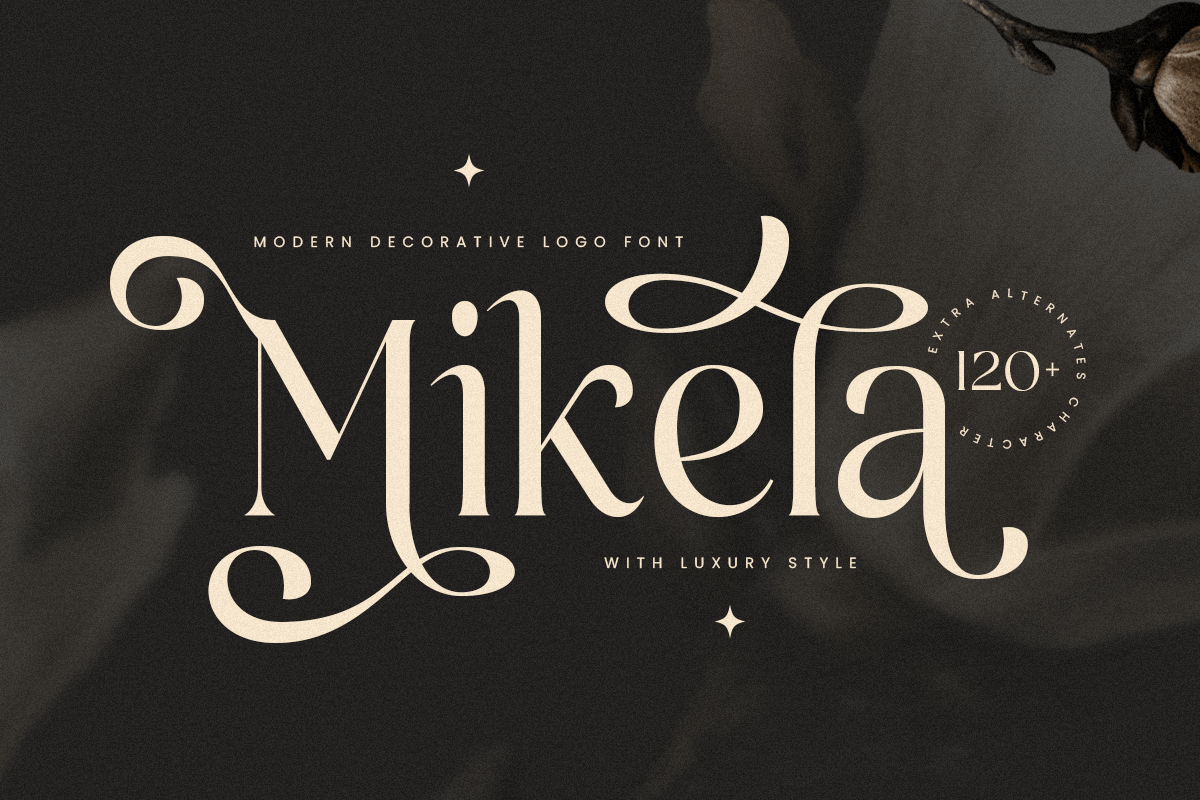
mikela
Mikela
Mikela-Modern Decorative Logo Font
Introducing Mikela, the epitome of luxury and cinematic elegance in a serif font. Perfectly crafted for sophisticated and high-end designs, Mikela brings a touch of class and refinement to any project.
Elevate your designs with Mikela, the luxury serif font that exudes sophistication and style. Whether for high-end branding, cinematic projects, or elegant typography, Bailey adds a timeless and refined touch to your work. Make a statement with Mikela and let your designs shine with unparalleled elegance.